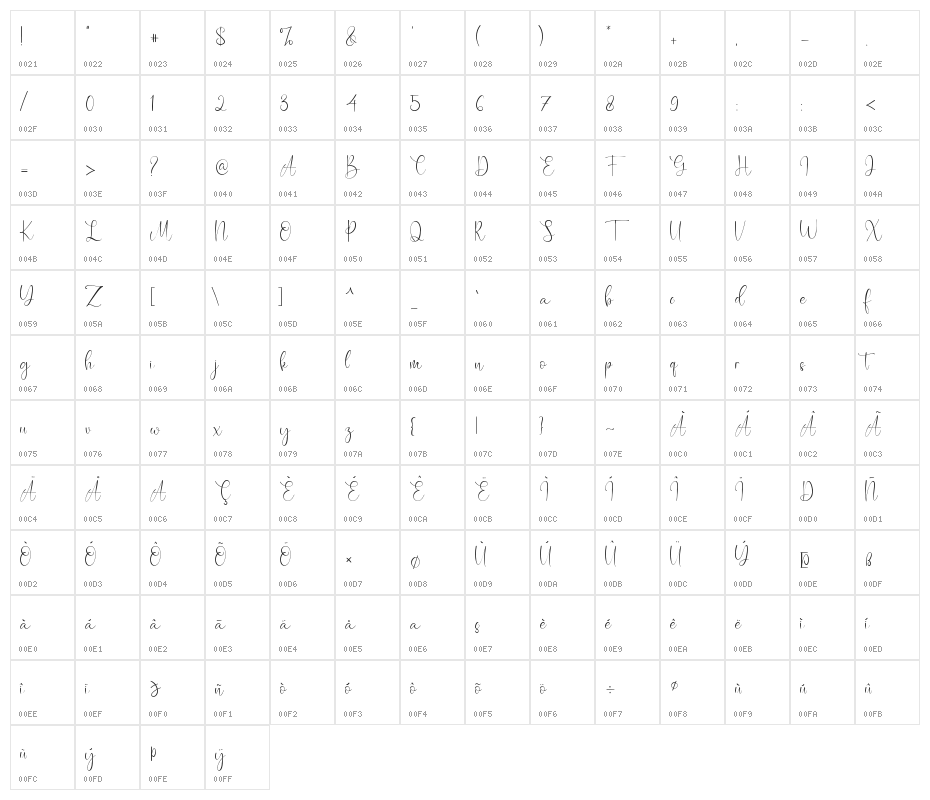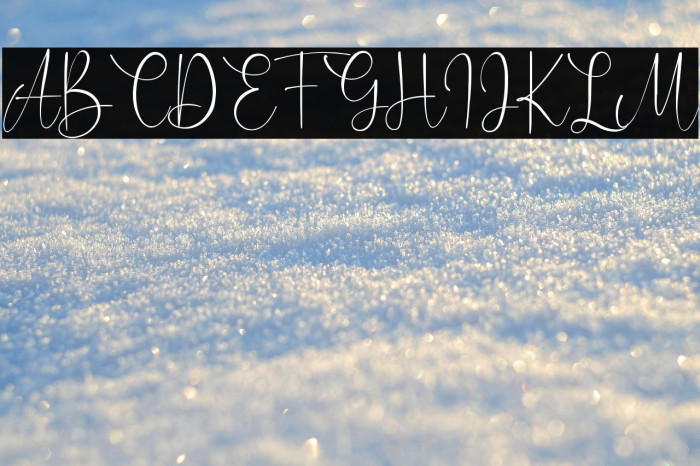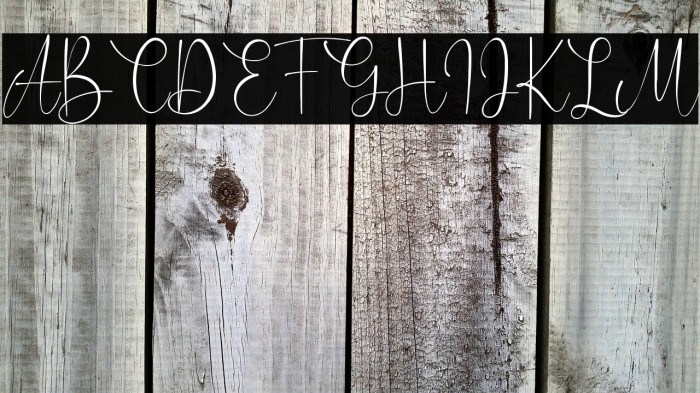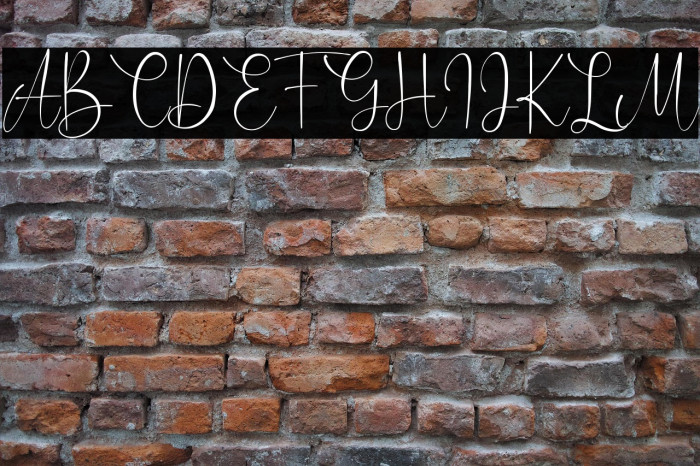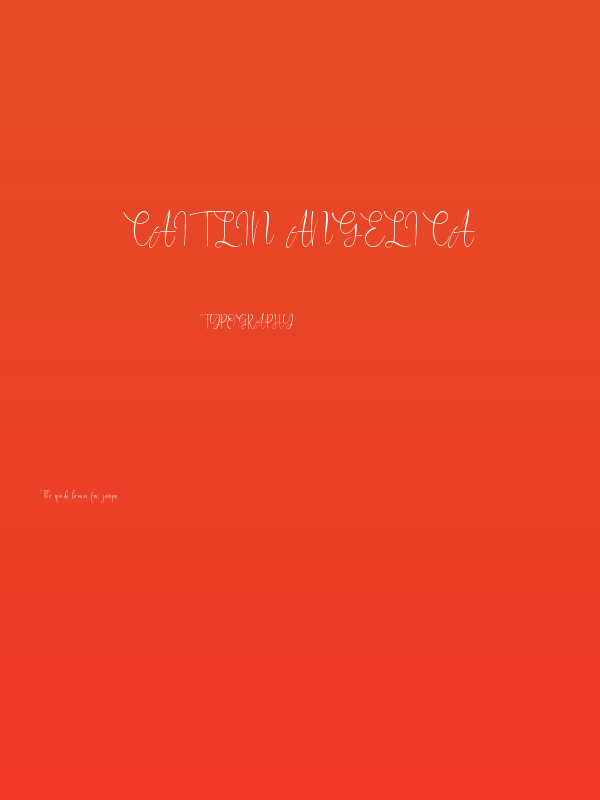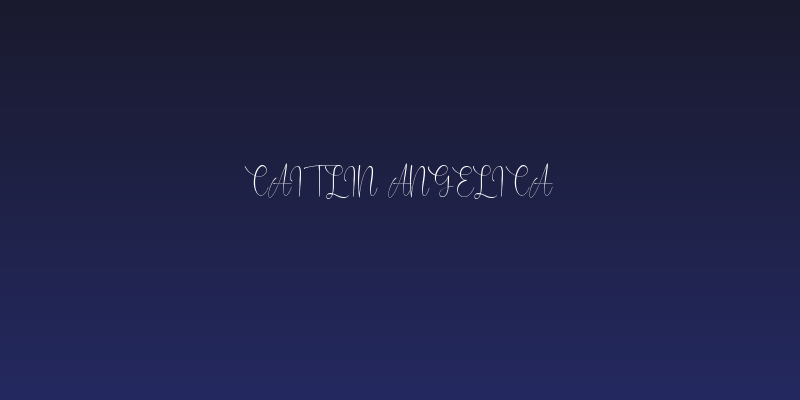
Caitlin Angelica Font
Caitlin Angelica Description
This font exhibits a graceful and flowing script style, characterized by its elegant and fluid letterforms. Each character is intricately designed with a sense of movement, creating a harmonious and artistic appearance. The uppercase letters are tall and slender, with gentle curves and loops that add a touch of sophistication. The lowercase letters maintain a consistent flow, enhancing readability while preserving the font's decorative nature. The numerals and special characters are crafted with the same attention to detail, ensuring a cohesive look across all elements. This font is ideal for projects that require a touch of elegance and creativity.